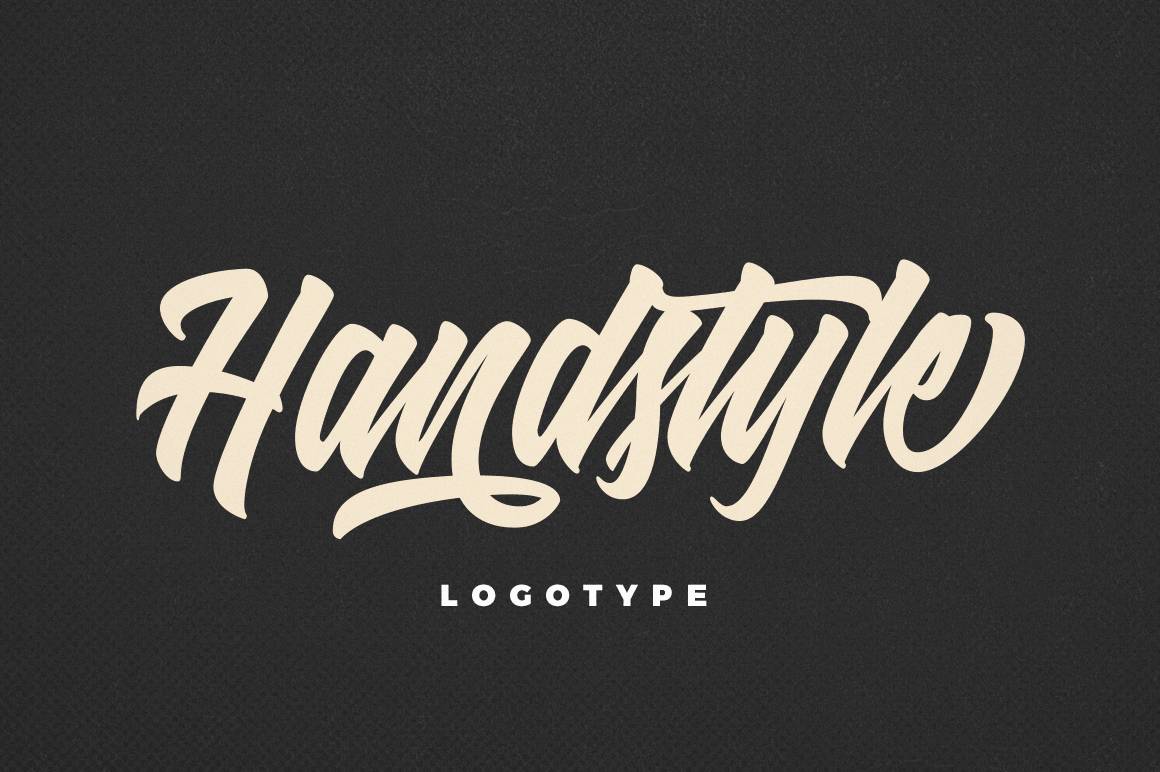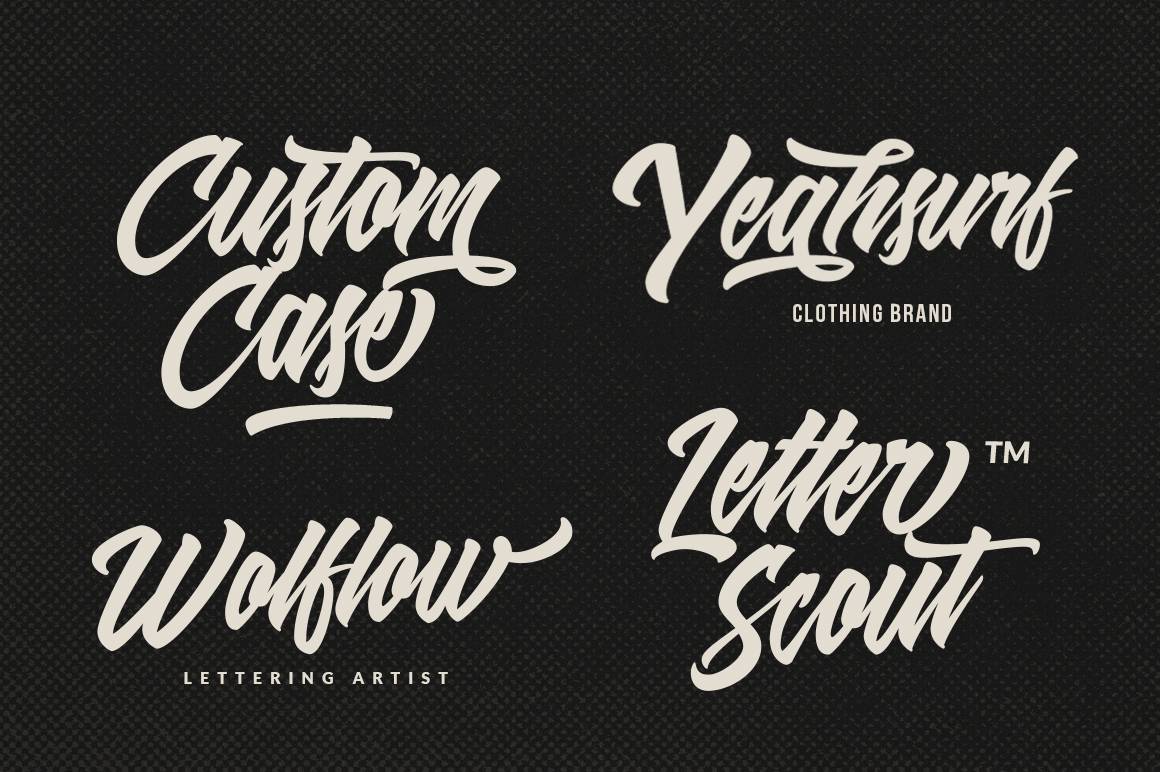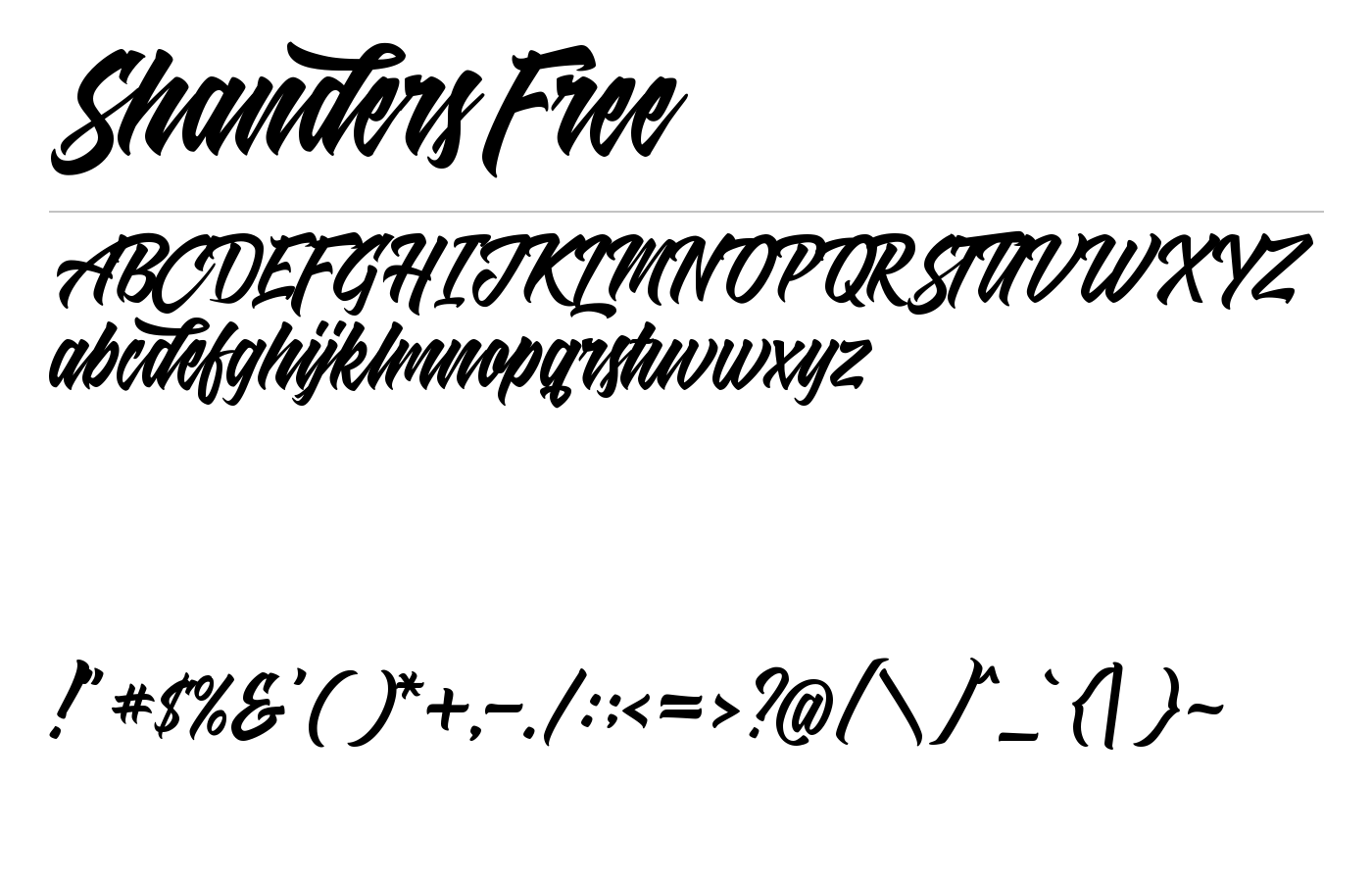
Shanders is an energetic script font with a bold, brushstroke style that conveys a sense of movement and creativity. Its thick and dynamic strokes with moderate contrast give it a dramatic and handcrafted feel, making it perfect for eye-catching headlines, branding, and creative projects that want to express personality and flair. This font works well for logos, posters, and packaging where a stylish, informal elegance is desired.
Shanders Font
About Shanders Font